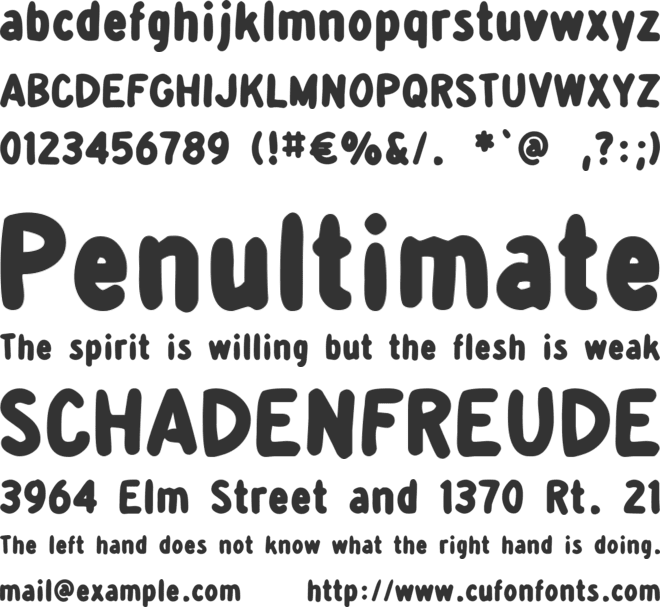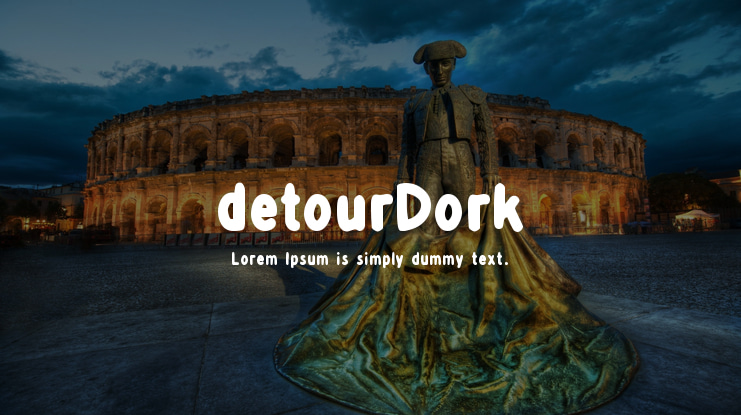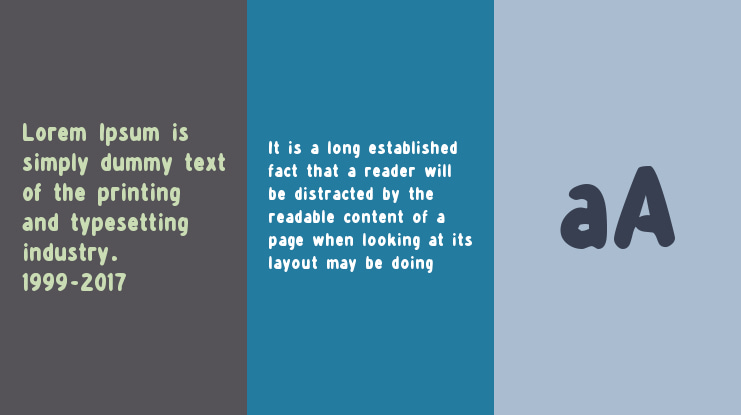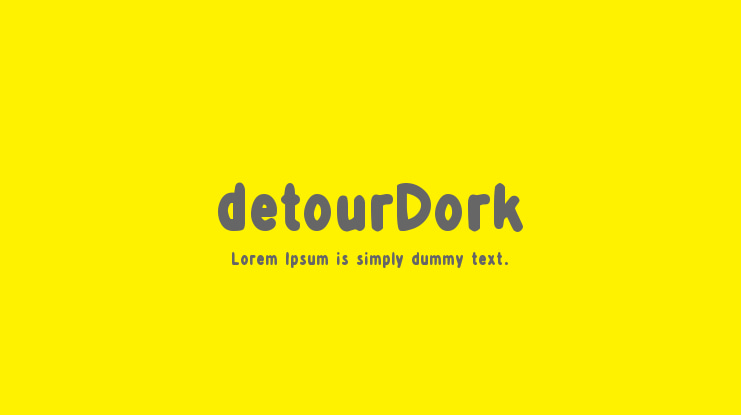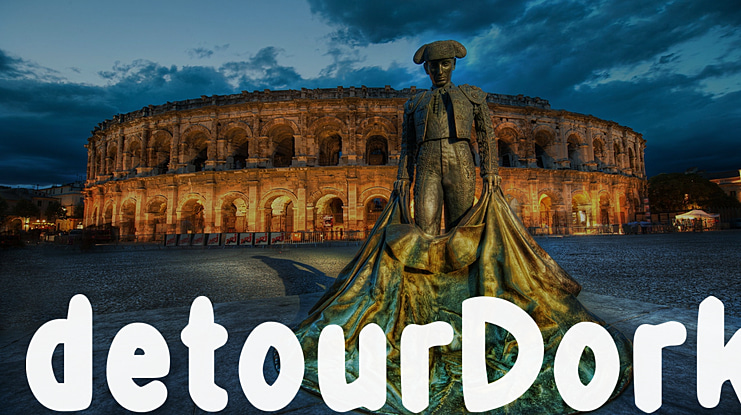
detourDork Font
Inspired by characters used on American interstate signs. Looks as if they were made using a marker with a rounded tip, a little irregular, yet very tight.